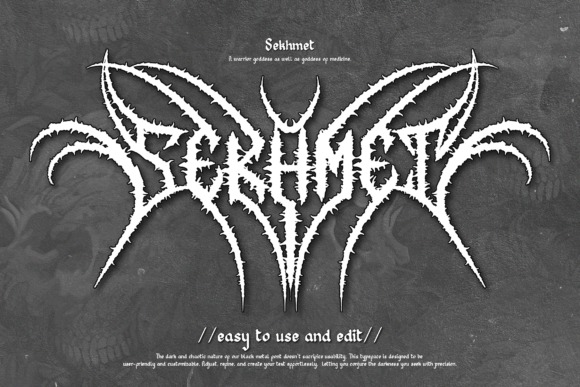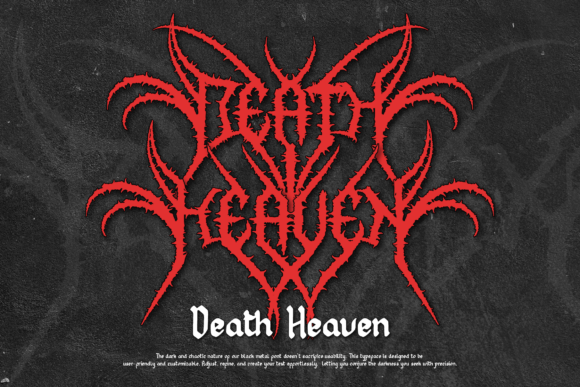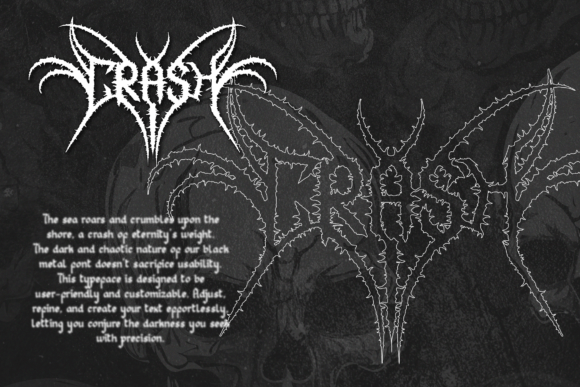
Introduction to Regolax Font
Regolax is a bold Black Metal font known for its sharp, angular letters and heavy, dark style.
It captures the intense and powerful feel of Black Metal music, making it perfect for album covers, posters, and any designs that need a touch of edge and drama The font has a strong, gritty look that stands out and grabs attention.
Key Features of Regolax Font
Why Choose Regolax Font?
Regolax Font offers exceptional quality and versatility, making it a valuable addition to your design toolkit. Whether you’re creating for personal projects or commercial use, Regolax Font delivers professional results.